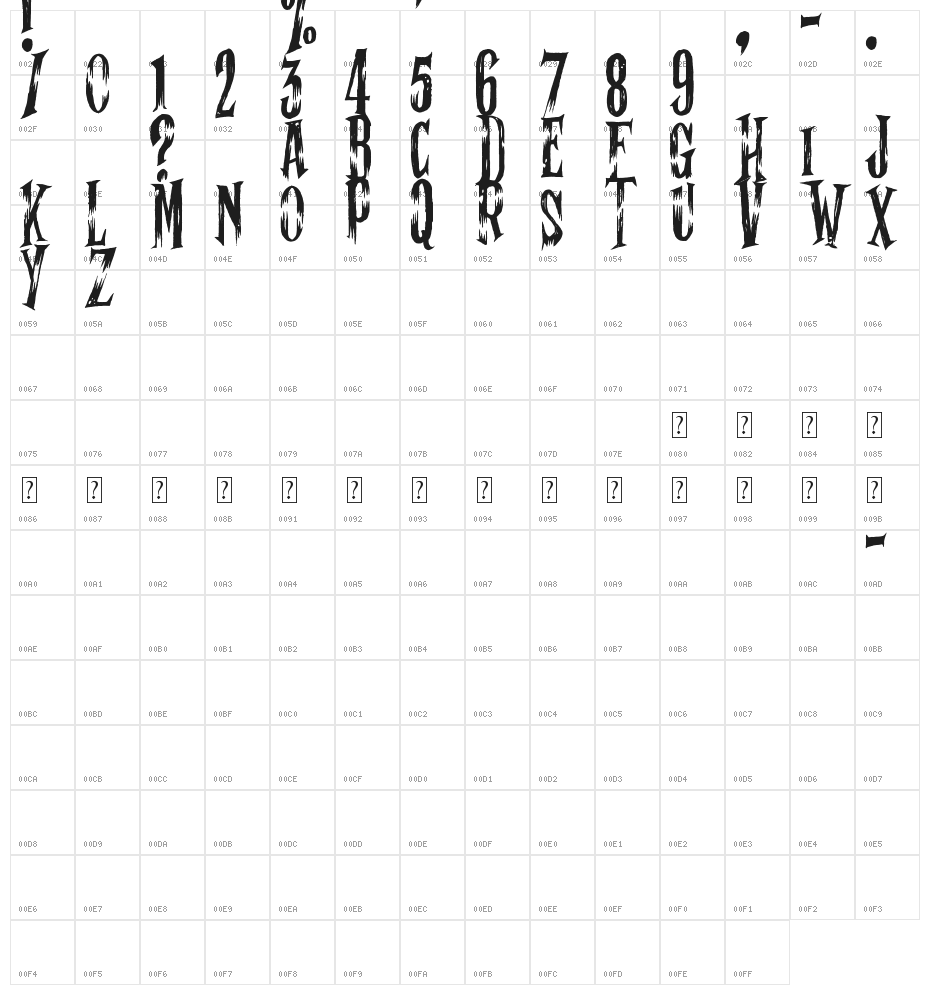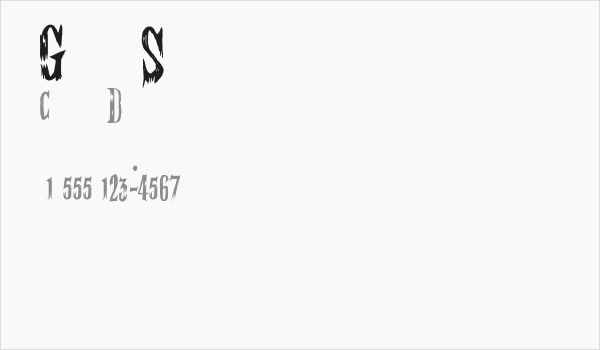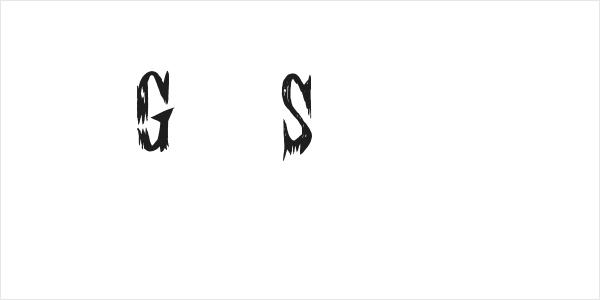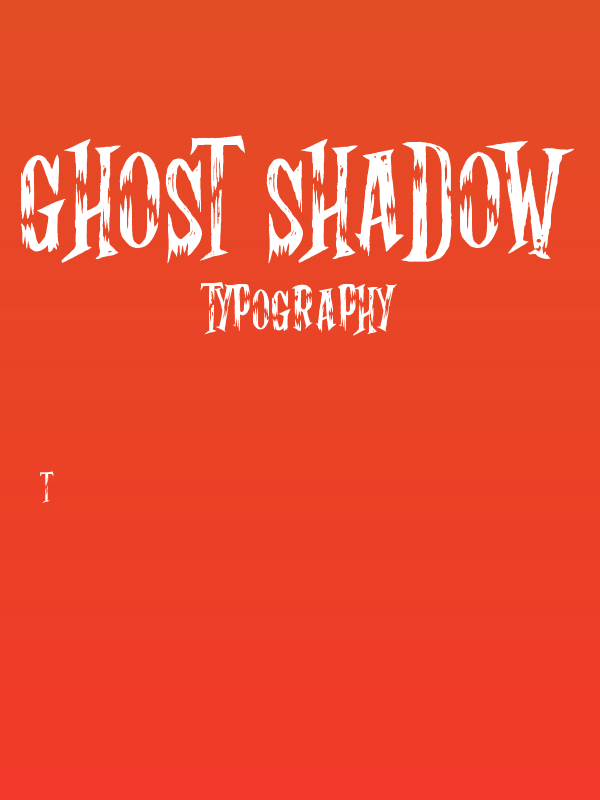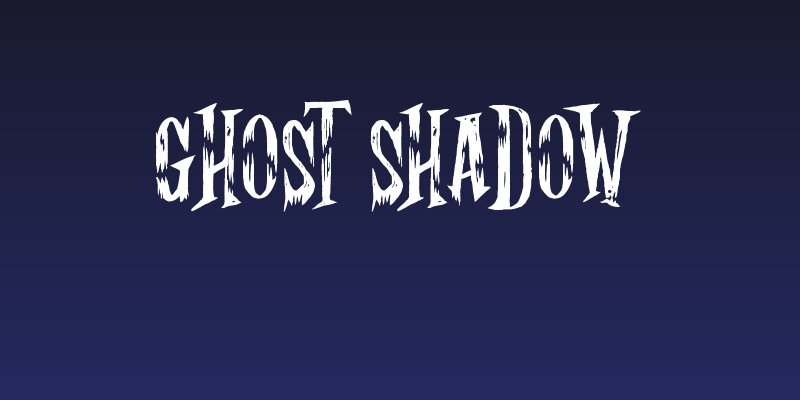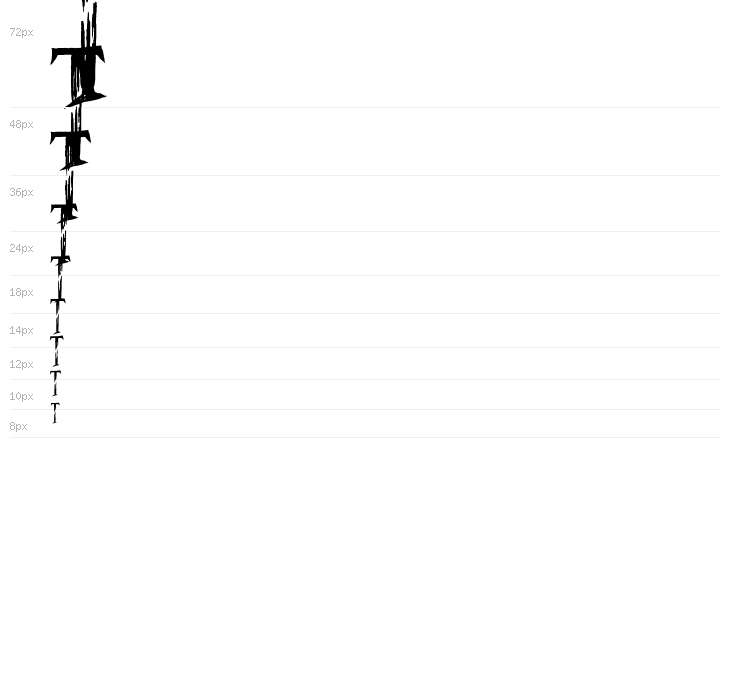
Ghost Shadow Font
Ghost Shadow Description
This font features a dramatic and eerie design, with characters that appear to be dripping or melting, creating a ghostly and shadowy effect. The uppercase letters are bold and elongated, with sharp edges and irregular contours that enhance its spooky appearance. The numbers and special characters follow the same style, maintaining a consistent theme throughout. This font is perfect for creating a haunting atmosphere in designs, making it ideal for Halloween-themed projects or anything requiring a mysterious and unsettling vibe.
| Proposed Projects | Ideal for Halloween invitations, horror movie posters, haunted house flyers, and themed event branding. |